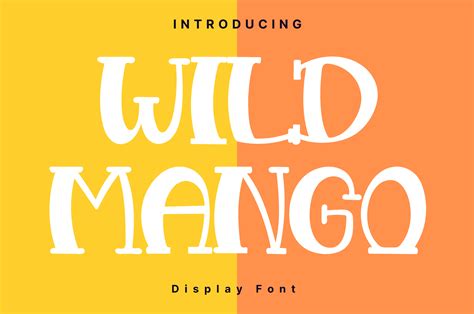
Wild Mango Font. This font is perfect for branding, logos, social media, prints, stickers, shirts, svg files and more! Wild mango is a chic and modern serif font that was created and shared by ka designs.
This font is perfect for branding, logos, social media, prints, stickers, shirts, svg files and more! Web wild mango is a chic + modern serif font. Wild mango is a chic and modern serif font that was created and shared by ka designs. Web wild mango serif font is a chic + modern serif font. Web wild mango font. By dafont june 11, 2023. Web wild mango is a chic + modern serif font. This font is perfect for branding, logos, social media, prints, stickers, shirts, svg files, and more! Wild mango is unique as it can be. This font is perfect for branding, logos, social media, prints, stickers, shirts, svg files and more!
Wild mango is unique as it can be. Web wild mango is a chic + modern serif font. Web wild mango serif font is a chic + modern serif font. Wild mango is unique as it can be. This font is perfect for branding, logos, social media, prints, stickers, shirts, svg files, and more! By dafont june 11, 2023. Wild mango is a chic and modern serif font that was created and shared by ka designs. Web wild mango is a chic + modern serif font. This font is perfect for branding, logos, social media, prints, stickers, shirts, svg files and more! This font is perfect for branding, logos, social media, prints, stickers, shirts, svg files and more! Web wild mango font.